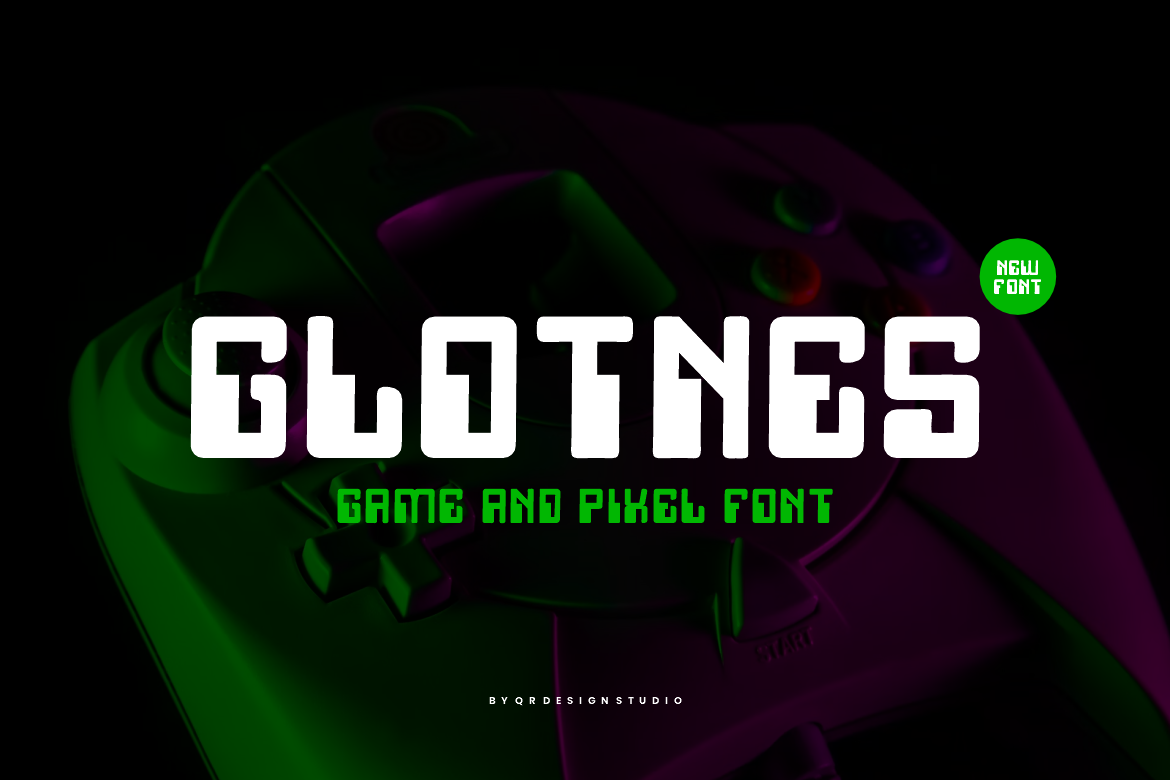
Glotnes - Game & Pixel Font
Glotnes Font is a bold and authentic display font. The font is suitable for any branding project like poster, logo, sport, and many more. Outstanding in a wide range of contexts.